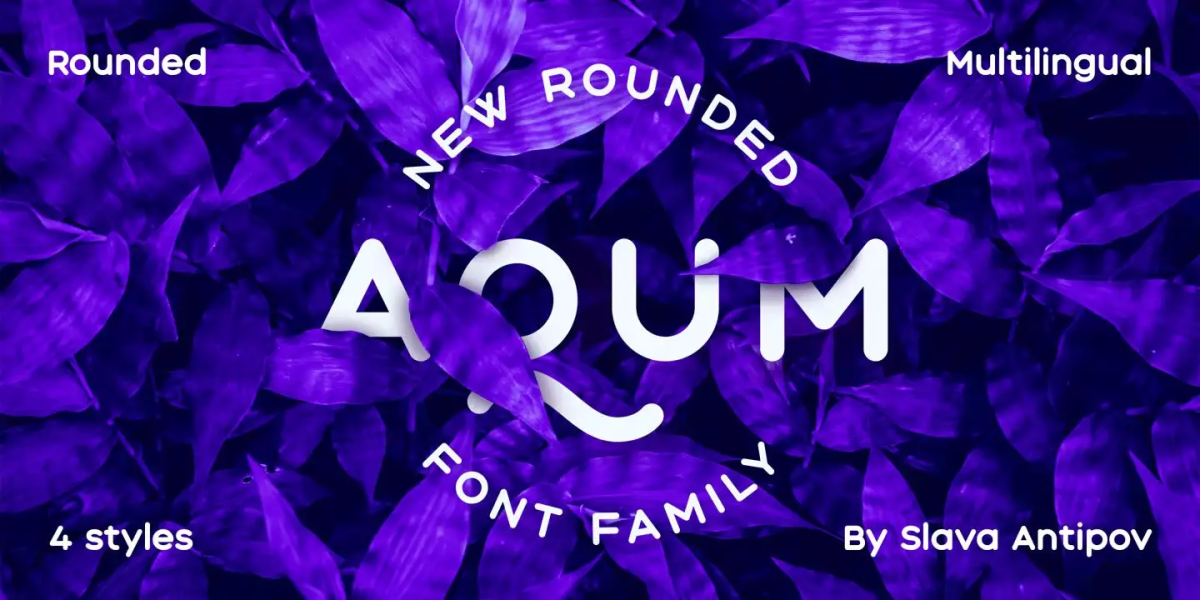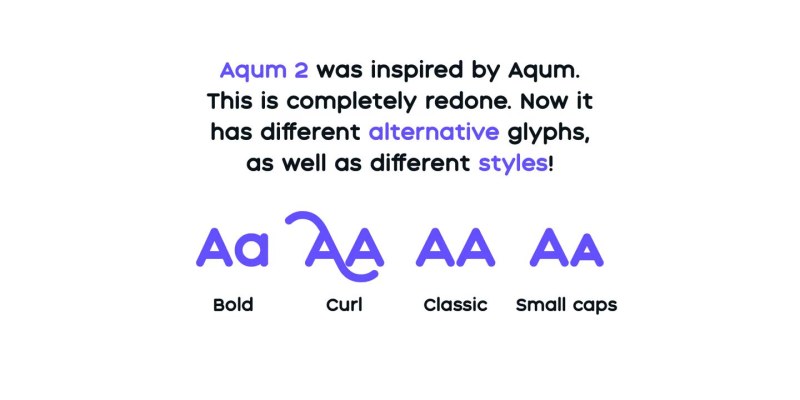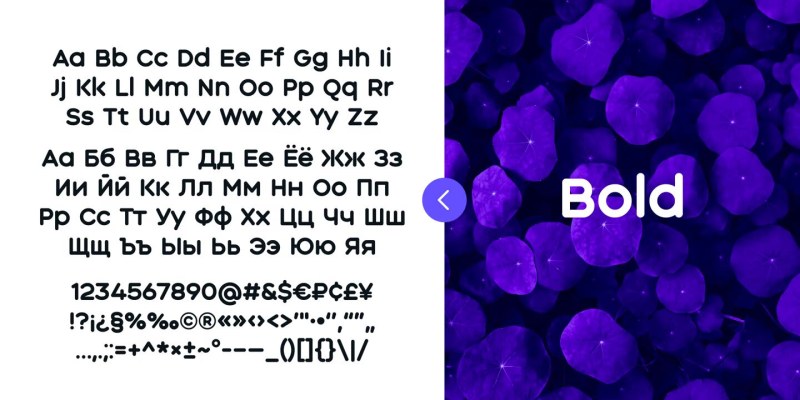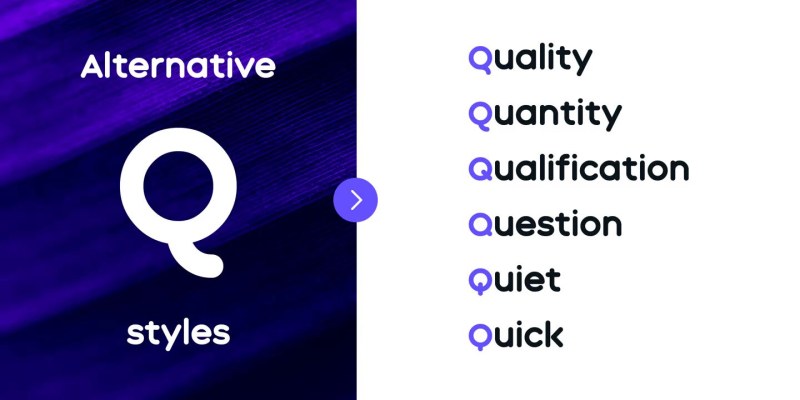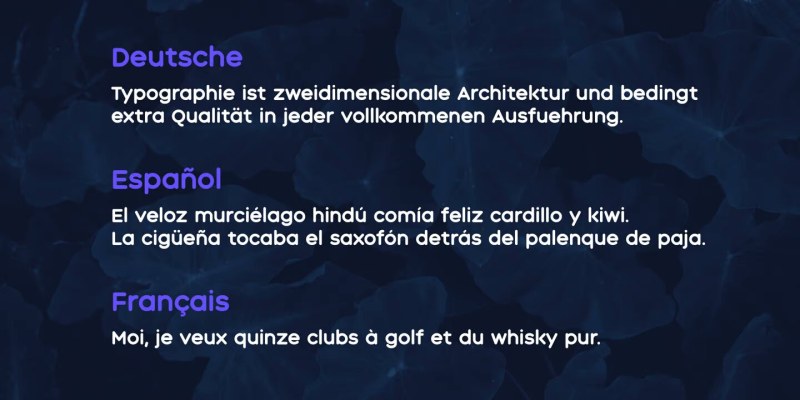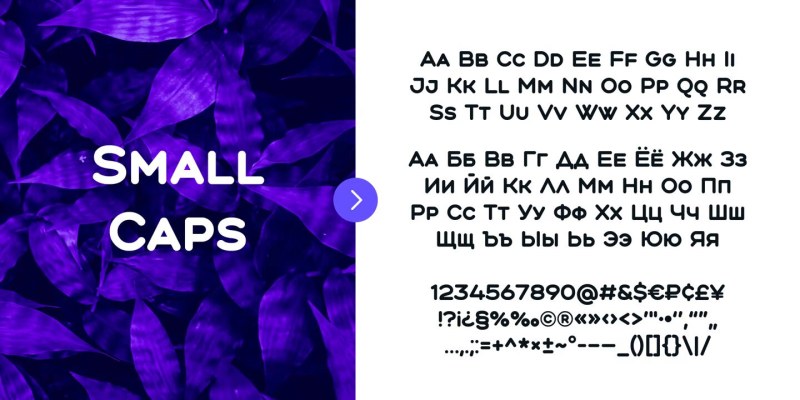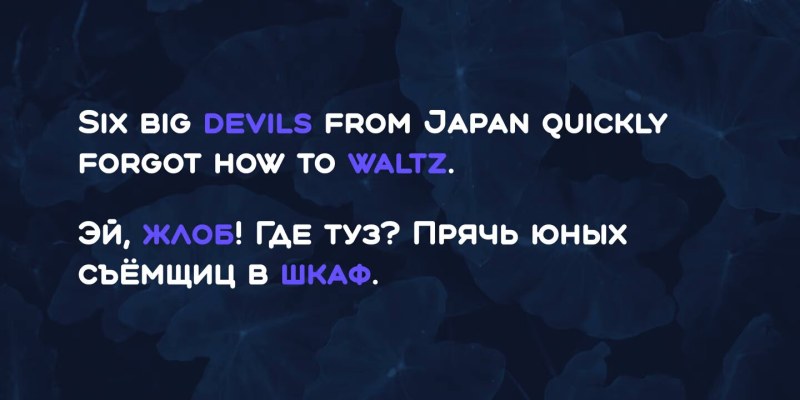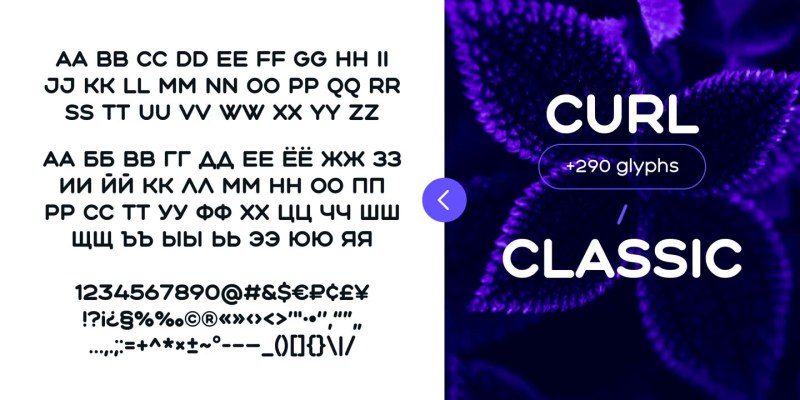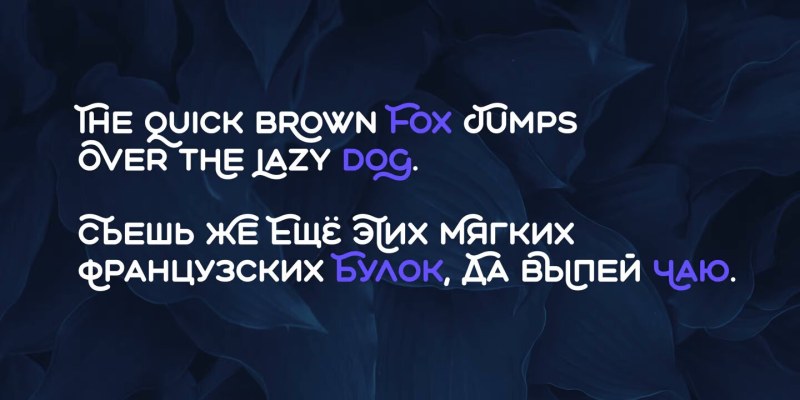
Aqum Two Font Family
Aqum Two is a minimalistic geometric sans serif font family with rounded corners and ends. This shape gives it a friendlier look. This family consists of 4 fonts: Bold with uppercase and lowercase letters, Small caps have tiny uppercase , Curl have 290 alternate glyphs, Classic is a simple font with all caps.
Aqum Two Font Family is a Sans Serif Fonts font that brings a professional and versatile look to your projects. Aqum Two is a minimalistic geometric sans serif font family with rounded corners and ends.